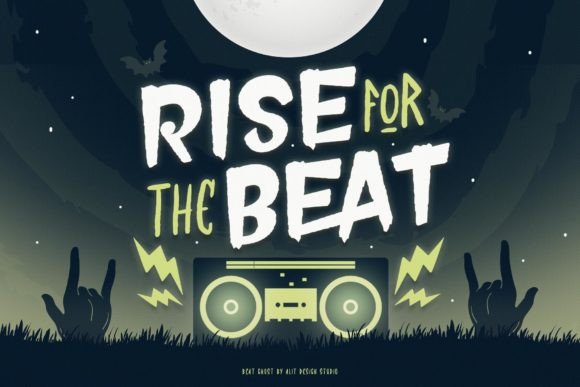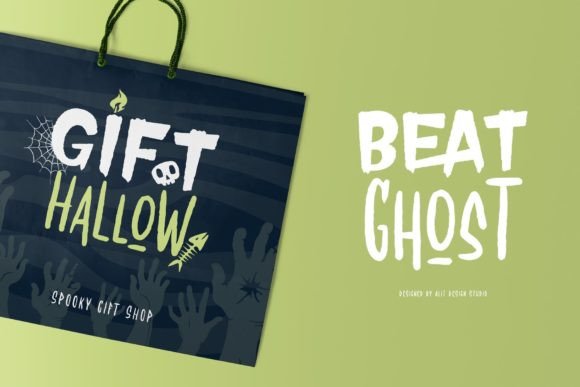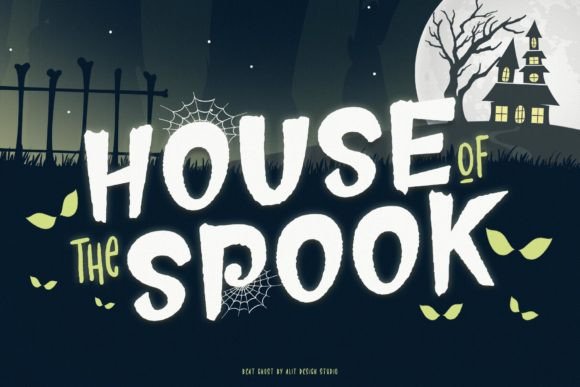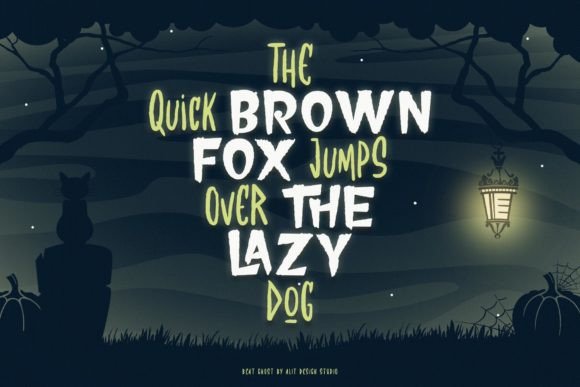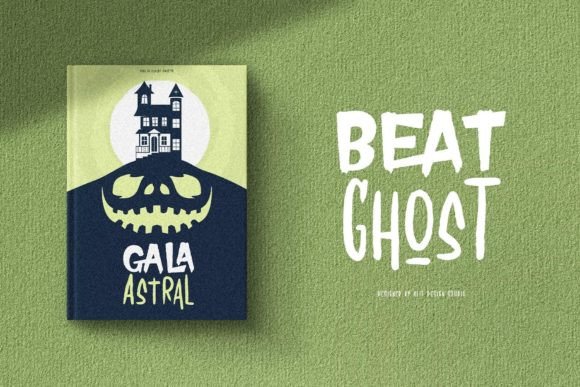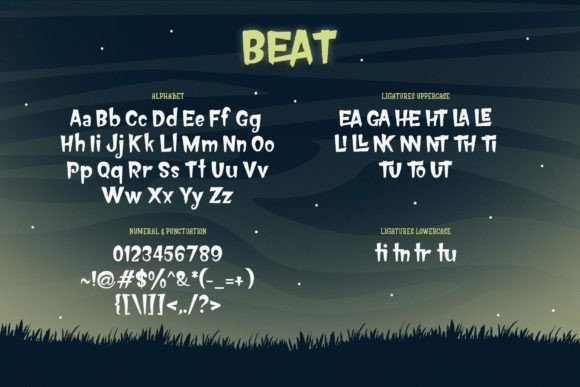
Introduction to Beat Ghost Font
Beat Ghost is a creepy and scary display font.
If you need to create thrilling Halloween designs, horror-themed posters, or just want to give your projects a more dramatic look, this font will be a perfect choice This font is PUA encoded which means you can access all the glyphs and ligatures with ease.
Key Features of Beat Ghost Font
Why Choose Beat Ghost Font?